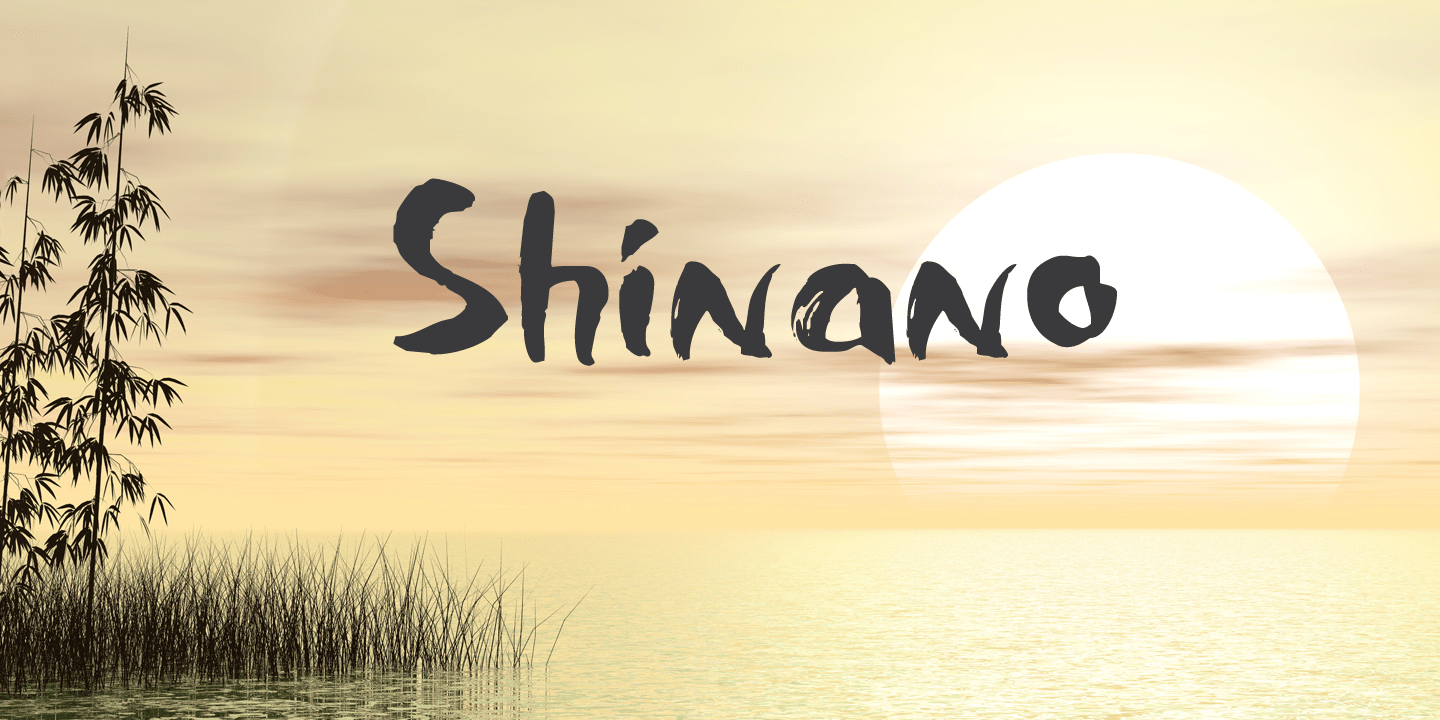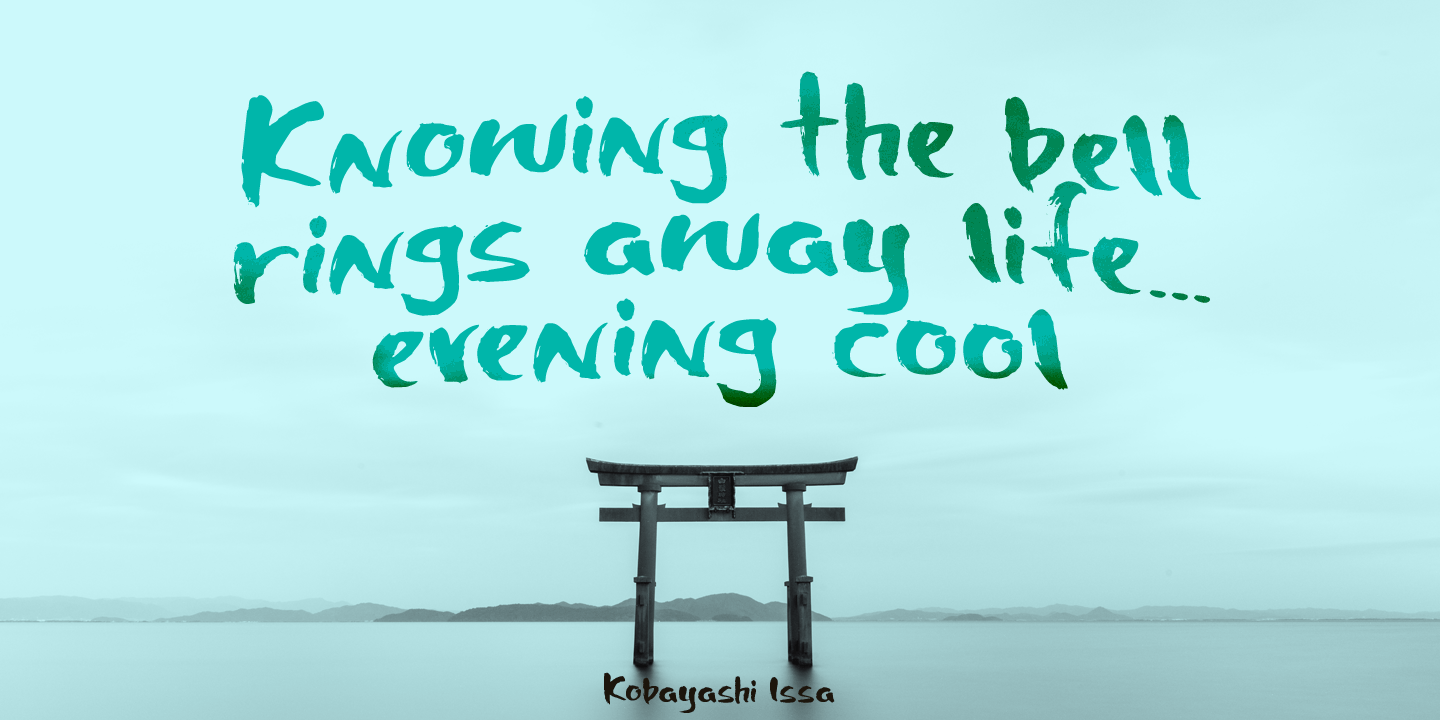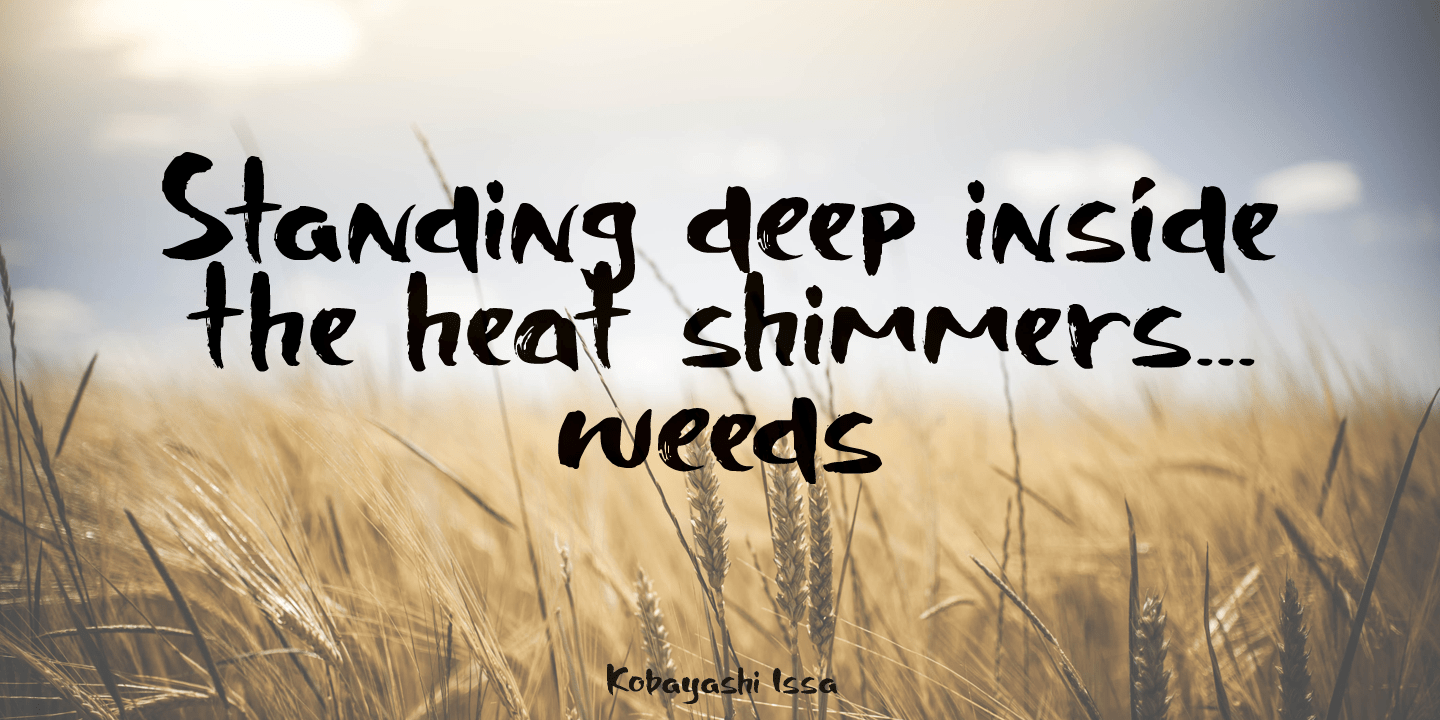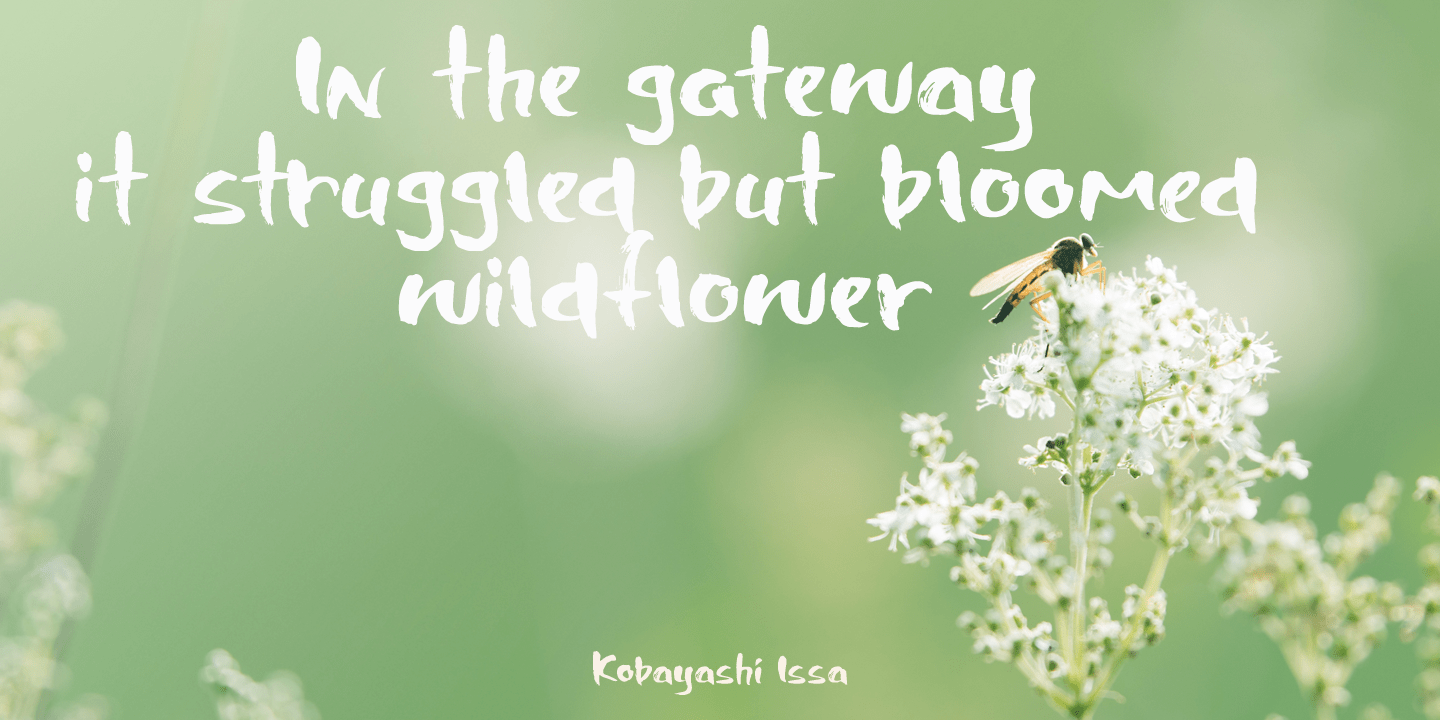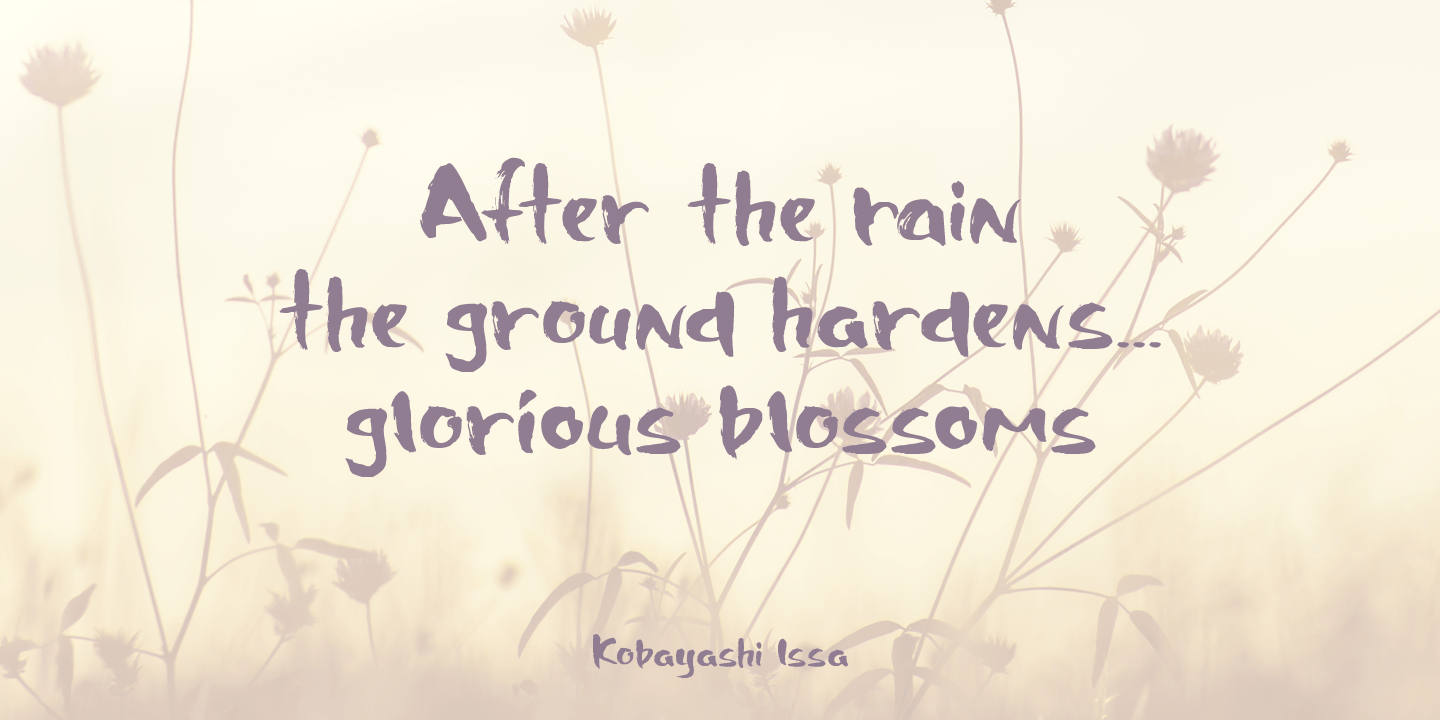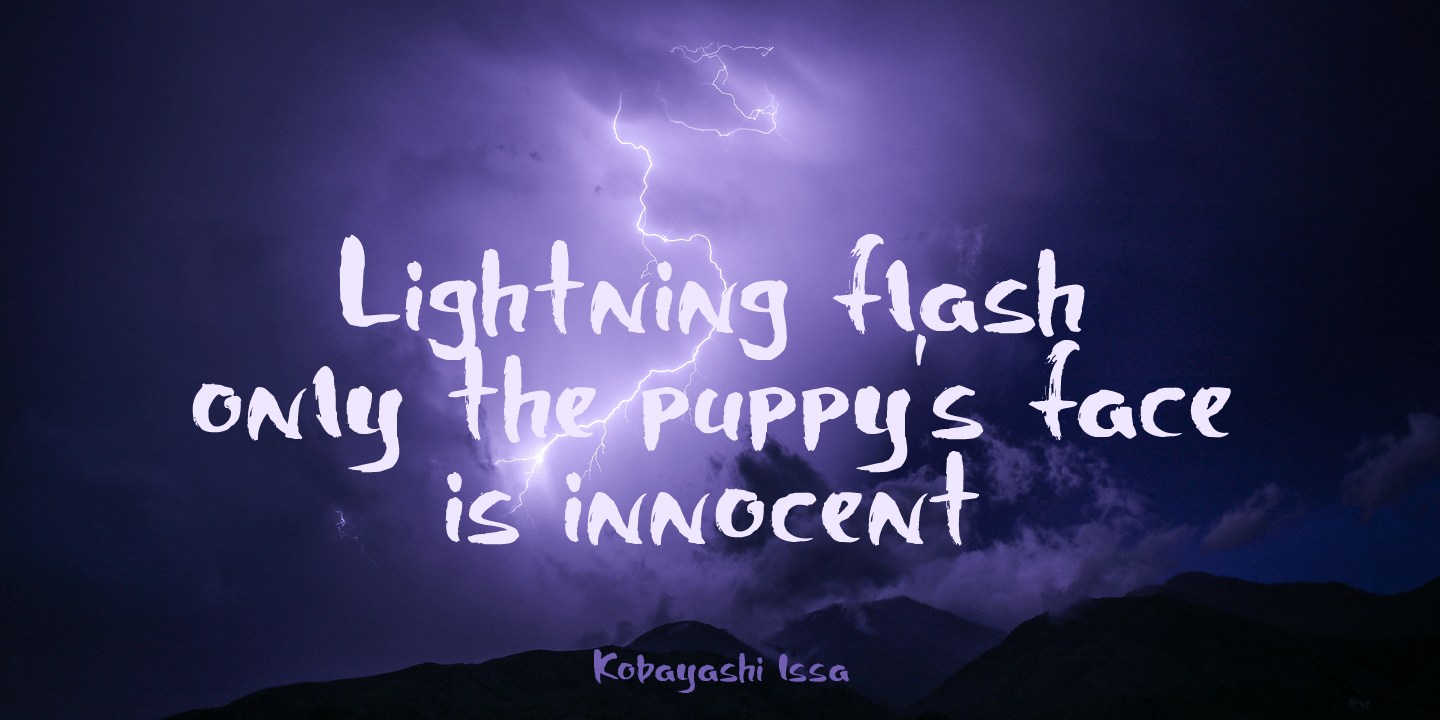
Shinano
Shinano is an old province of Japan. Kobayashi Issa (1763 - 1828), a famous Japanese Haiku poet and Buddhist priest, was born here. Together with Bash? he is my favourite Haiku poet. Shinano font was hand made using a Japanese brush pen. At first glance it may look like a messy script, but underneath its rough appearance beats a poetic heart.
Comes with some alternates and ligatures and a whole lot of diacritics.